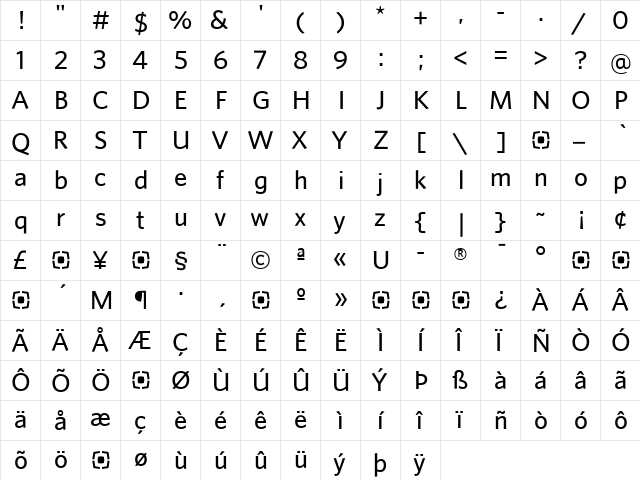
WhitneySans Regular
Design Context for WhitneySans Typeface
WhitneySans offers clean, dependable letterforms without strong stylistic allegiance, making it a practical choice for designers who need flexibility.